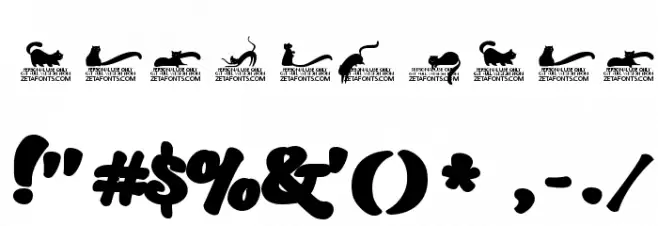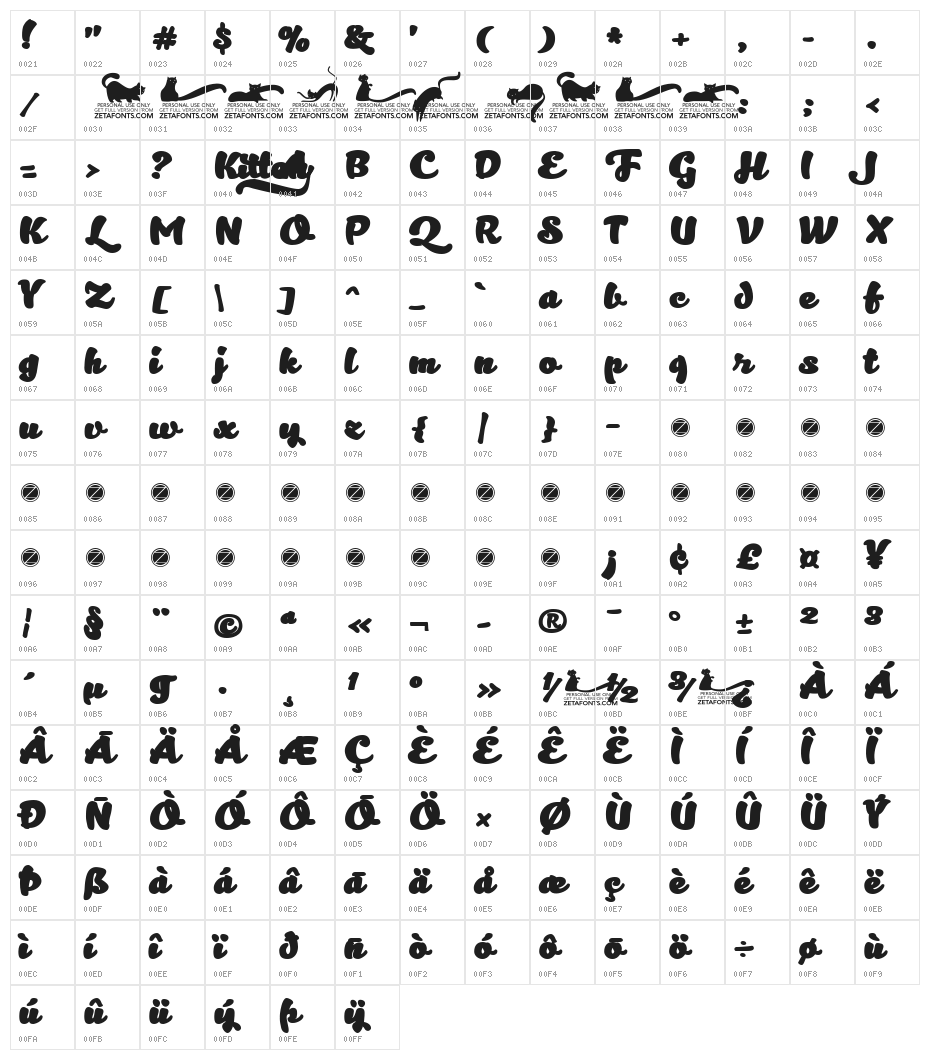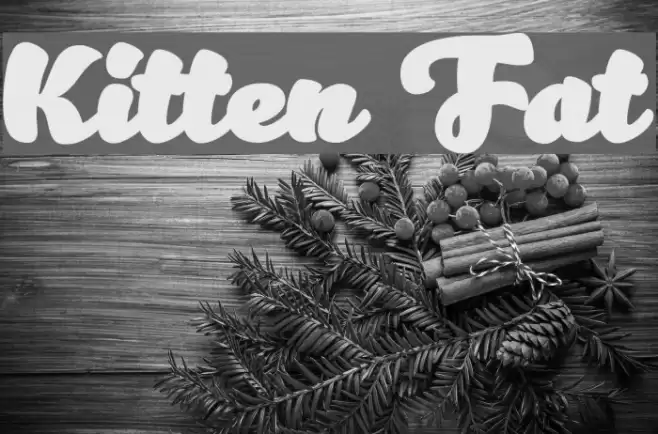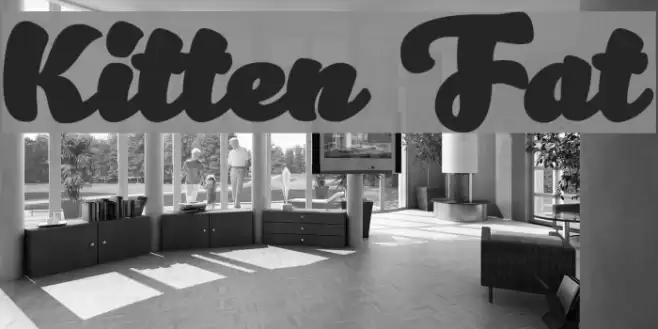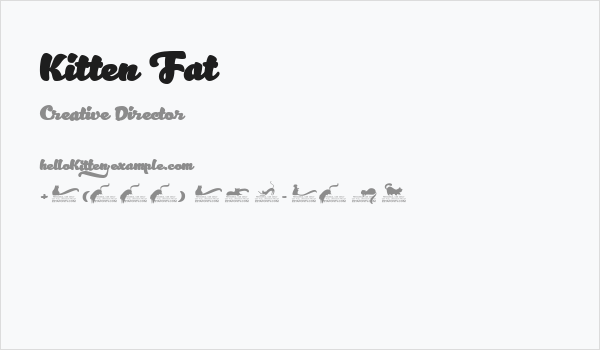
Kitten Fat Font
Kitten Fat Description
This playful and bold font features thick, rounded strokes that give it a whimsical and friendly appearance. The characters are connected in a cursive style, creating a sense of fluidity and movement. The uppercase and lowercase letters maintain a consistent weight, contributing to its cohesive look. The font includes a variety of special characters, enhancing its versatility. Its unique style is reminiscent of handwritten script, yet with a modern twist that makes it suitable for contemporary designs. The overall appearance is both charming and approachable, making it ideal for projects that require a touch of personality.
| Overall Style | Playful, Modern |
| Proposed Projects | Ideal for children's book covers, playful branding, greeting cards, and creative posters. |